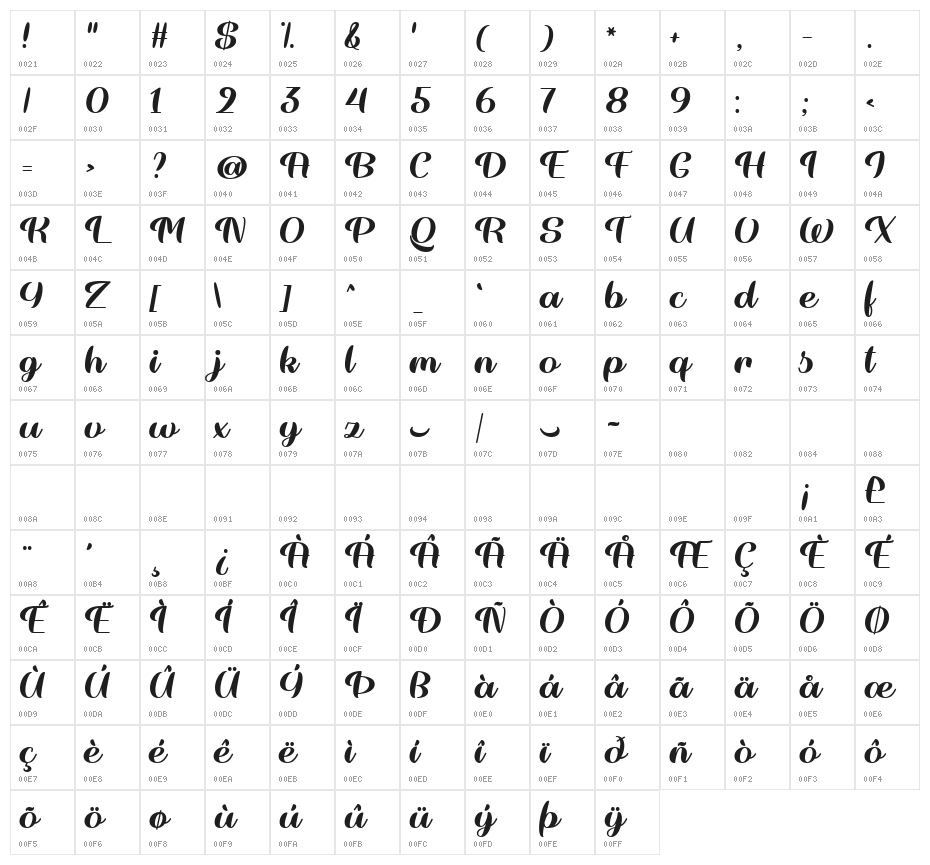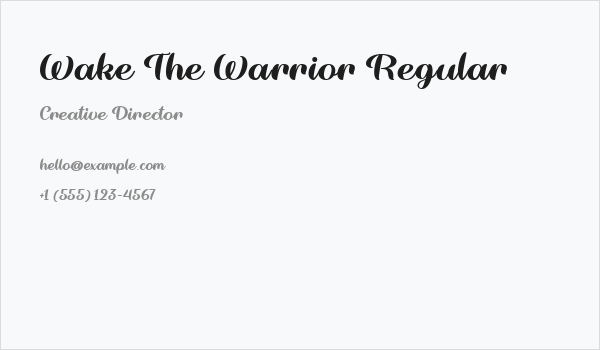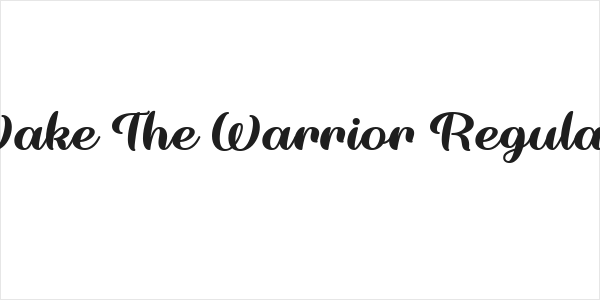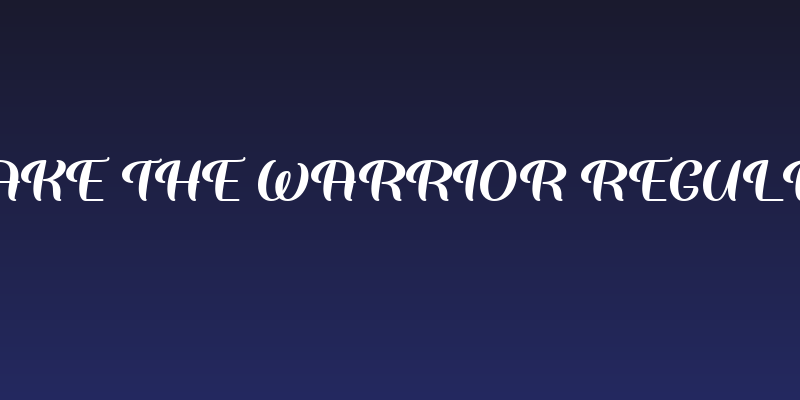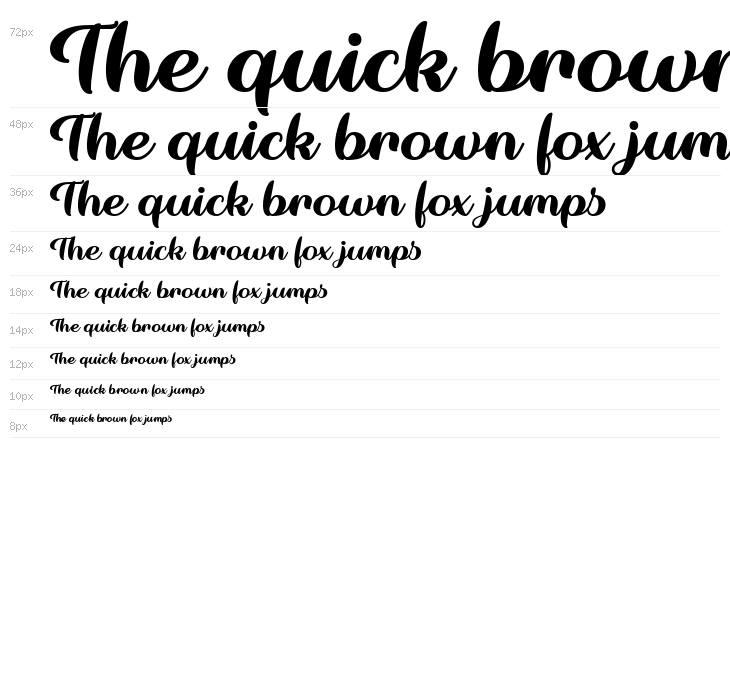
Wake The Warrior Regular Font
Wake The Warrior Regular Description
This font features a bold and expressive script style, characterized by its flowing and connected letterforms. The uppercase letters exhibit a dynamic and elegant flair, with sweeping curves and a sense of movement. The lowercase letters maintain a consistent rhythm, enhancing readability while retaining a stylish appearance. The numerals are bold and clear, matching the overall aesthetic of the font. Special characters are thoughtfully designed to integrate seamlessly with the rest of the typeface, making it versatile for various applications. The font's boldness and unique style make it suitable for eye-catching designs.
Use CaseLogos, Headlines, Invitations
Proposed ProjectsIdeal for branding, invitations, greeting cards, and logo design.